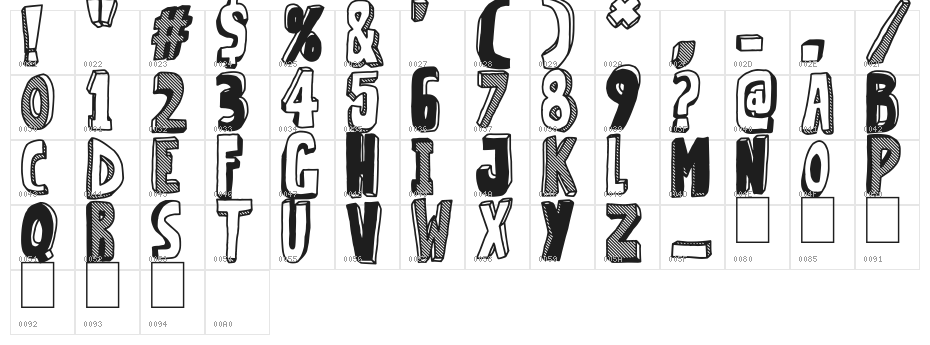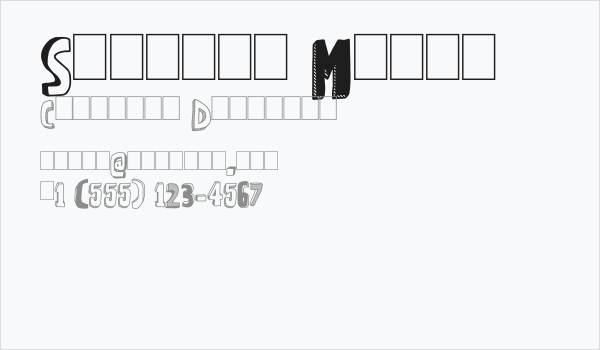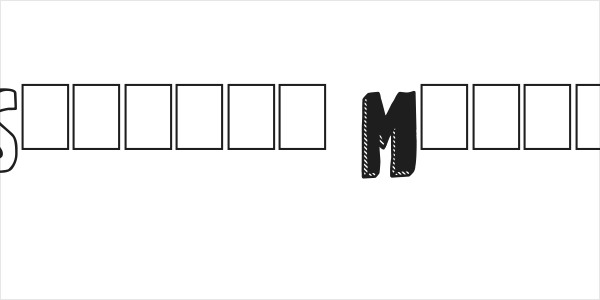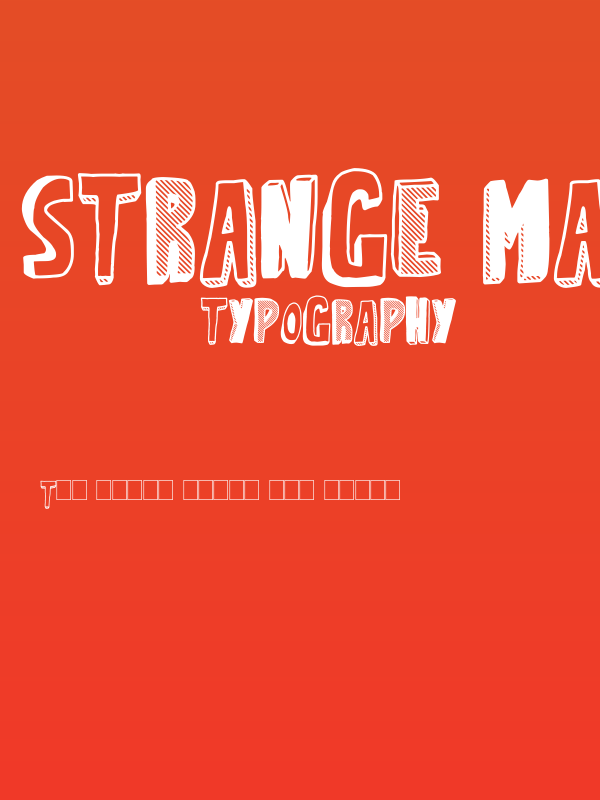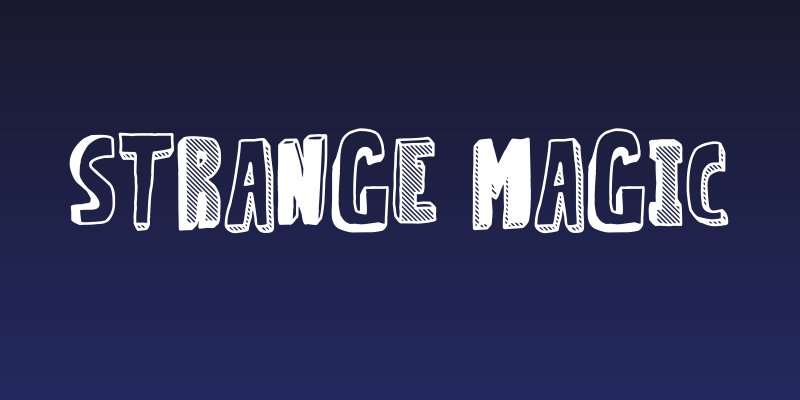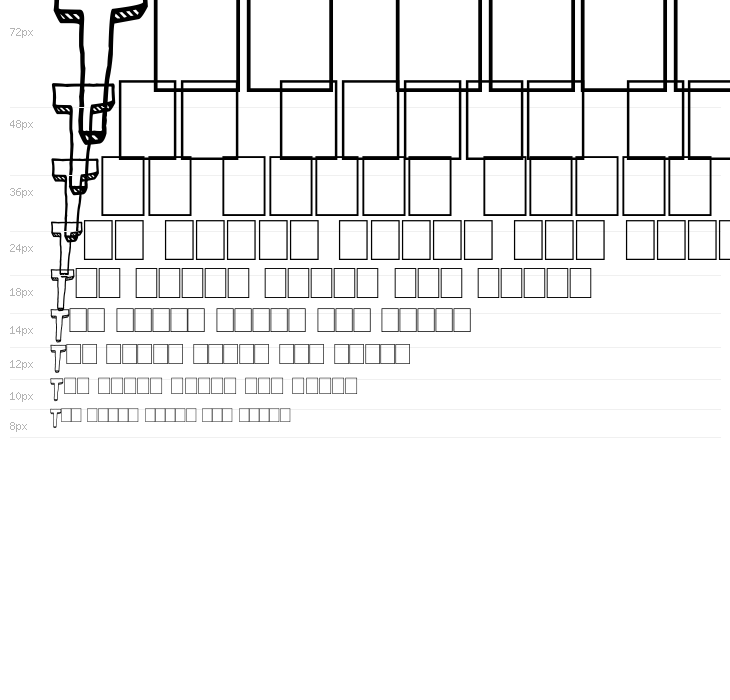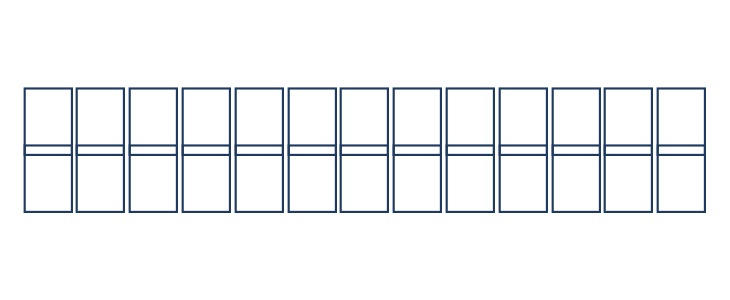
Strange Magic Font
Strange Magic Description
This font features a playful and whimsical design, characterized by its bold, hand-drawn appearance. Each character is uniquely styled with a mix of solid fills and striped patterns, giving it a dynamic and energetic feel. The letters are slightly irregular, adding to the handcrafted aesthetic. The font includes both uppercase and lowercase letters, numbers, and a variety of special characters. Its quirky and artistic style makes it ideal for projects that require a fun and informal touch.
| Overall Style | Playful, Artistic, Handcrafted |
| Use Case | Headlines, Posters, Branding |
| Proposed Projects | Ideal for children's book covers, playful posters, creative branding, and artistic social media graphics. |